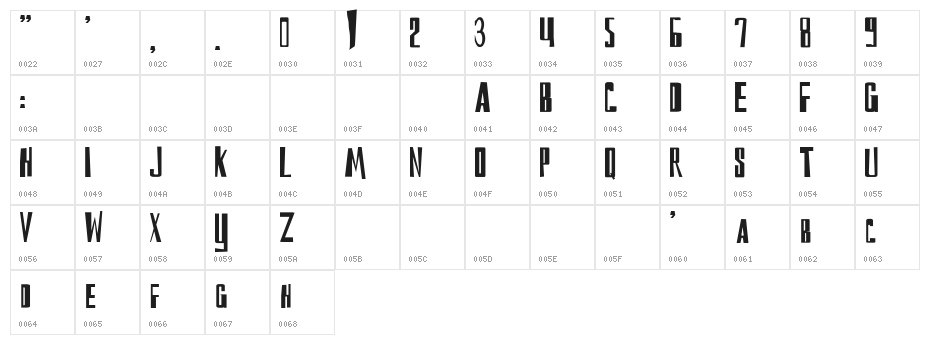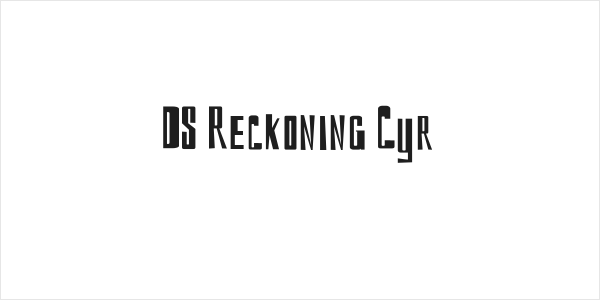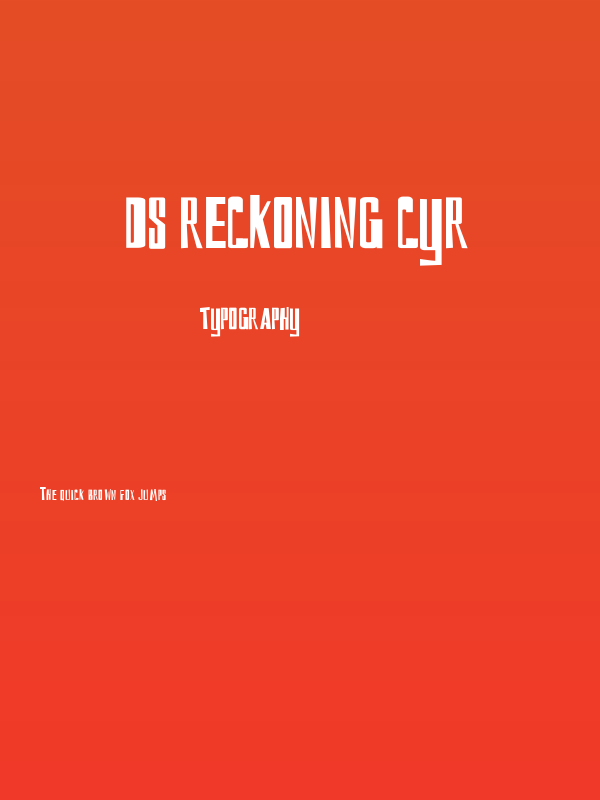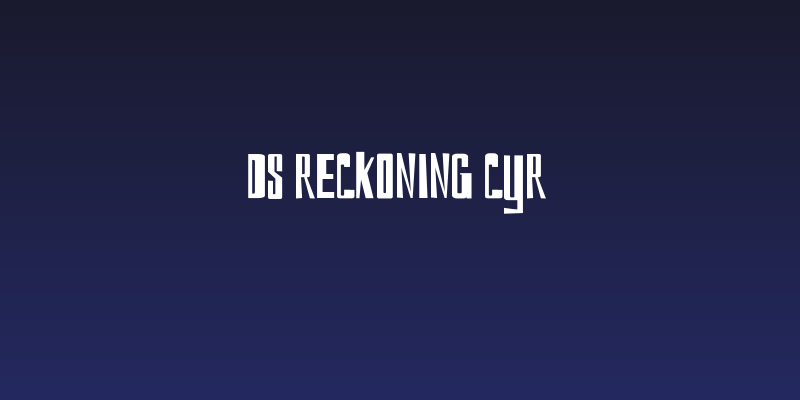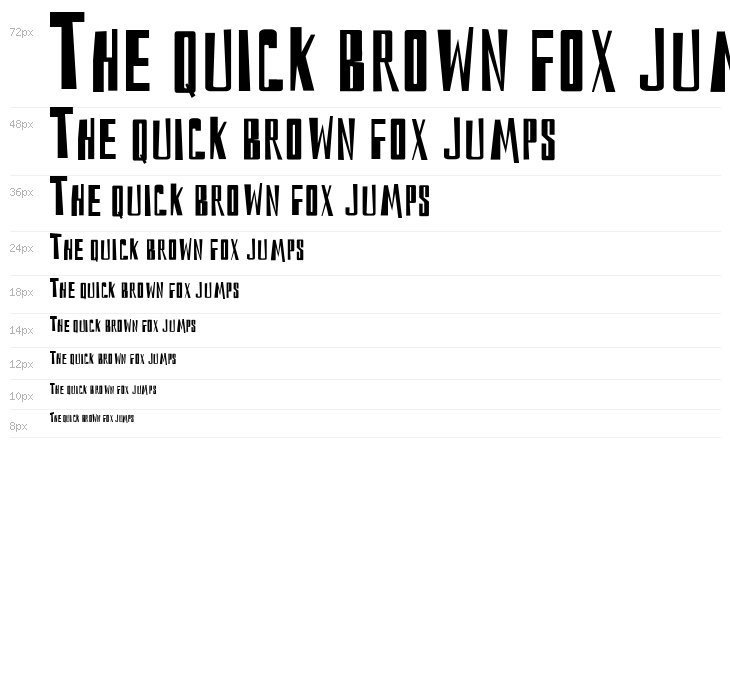
DS Reckoning Cyr Font
DS Reckoning Cyr Description
This font features a bold and striking design with a modern, angular aesthetic. Each character is crafted with sharp edges and a geometric style, giving it a futuristic and dynamic appearance. The uppercase letters are particularly prominent, with a strong vertical emphasis and varying widths that create a sense of movement and energy. The lowercase letters maintain the same angular style, ensuring consistency across the typeface. Numbers and special characters are designed to match the boldness of the alphabet, making them suitable for impactful displays. The overall design is both eye-catching and versatile, ideal for projects that require a strong visual presence.
| Proposed Projects | Ideal for posters, branding, video game graphics, and futuristic-themed designs. |